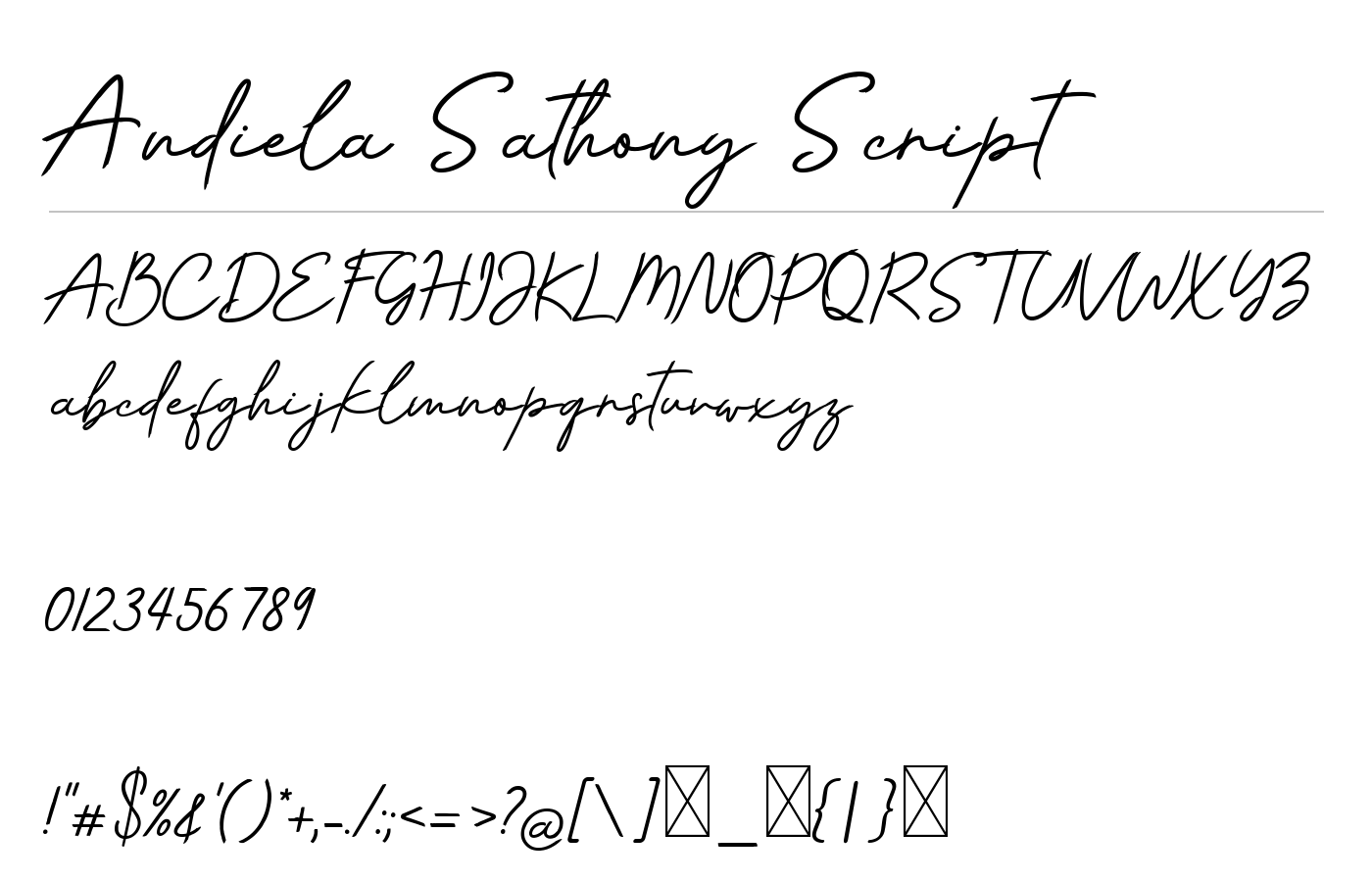
Andiela Sathony is a delicate and elegant script font characterized by its thin, flowing strokes and a natural, handwritten feel. Its slender letterforms and high x-height create a graceful and airy appearance, making it perfect for invitations, branding, and creative projects that seek a personal yet refined touch. This font’s casual sophistication works well in designs that want to convey warmth, creativity, and a modern, stylish vibe.
Andiela Sathony Font
About Andiela Sathony Font